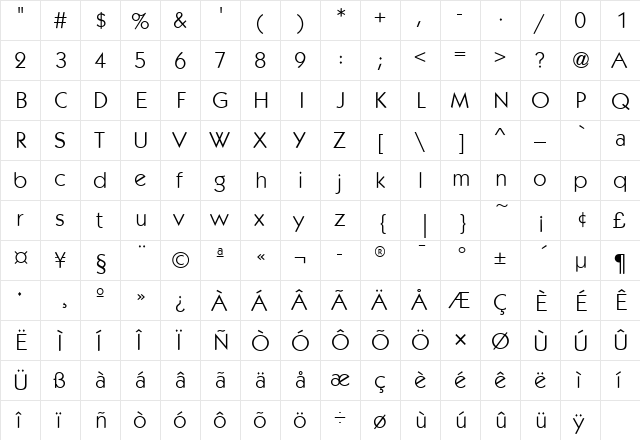
KabelITC Book
Design Context for KabelITC Typeface
KabelITC offers clean, dependable letterforms without strong stylistic allegiance, making it a practical choice for designers who need flexibility.
Pro Tip: Pair KabelITC with a font of contrasting weight or personality to build a more expressive typographic hierarchy.